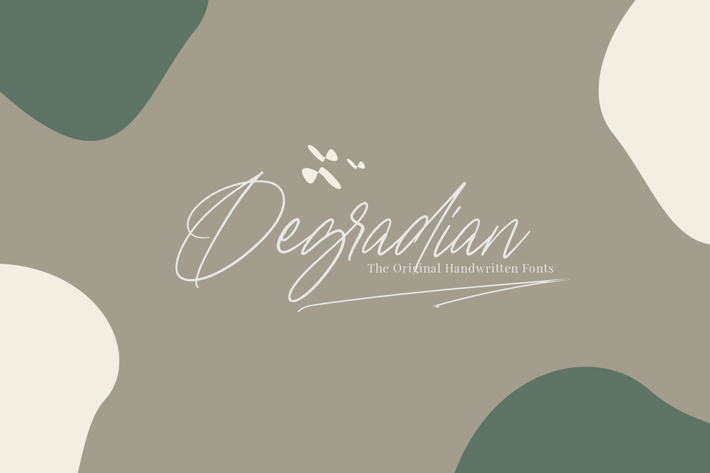
Degradian - Handwritten Fonts
Degradian is the original handwritten font. Has a standard character and also some multilingual characters. In addition to this character, Degradian also has features in it, including a ligature and two different character styles.
You can use Degradian for all your design work, such as social media campaigns, book covers, logos, web, etc., which is why Degradian has a webfont in it.